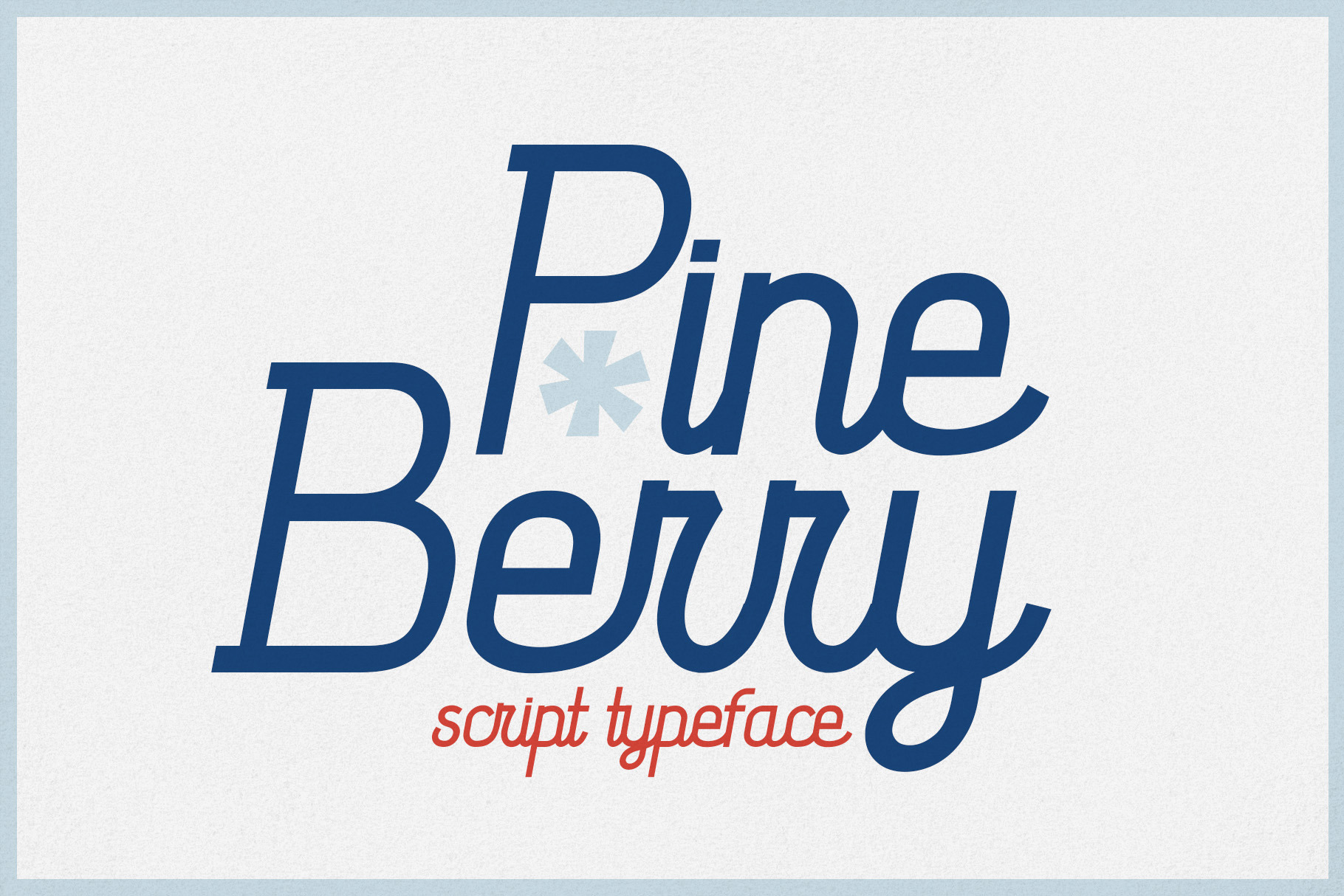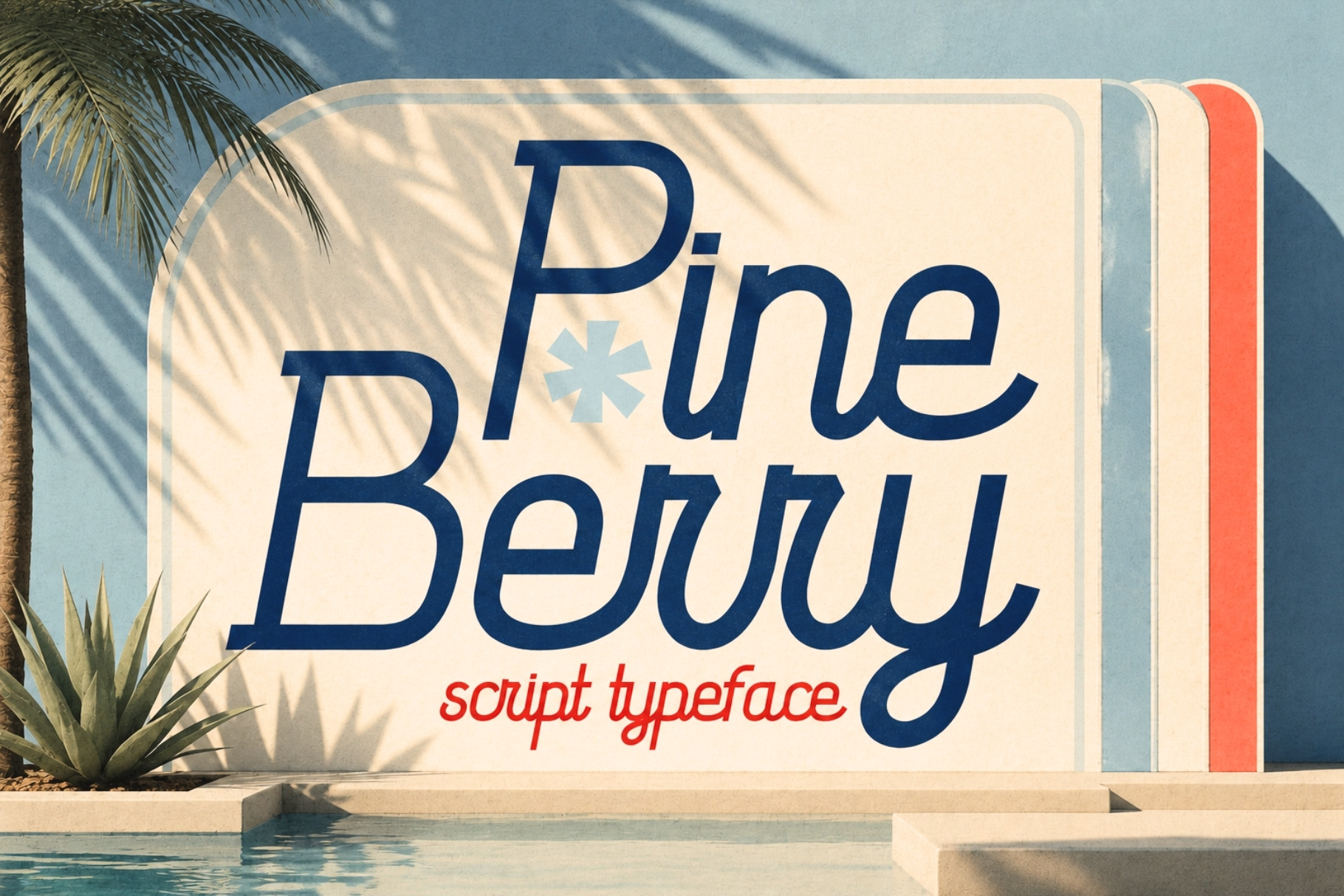
Pineberry - Script Typeface
Pineberry is handmade cursive typeface inspired by 1960-1970s graphic design. The font has a playful/lighthearted personality which shines when used in packaging, book covers, wedding invitations, clothing brands, vintage designs, and more. Its beautiful mono weight curvilinear forms serve as attention grabbing eye candy. The font comes in OTF and TTF versions and has lower and uppercase letters. Enhance your designs with Pineberry today!